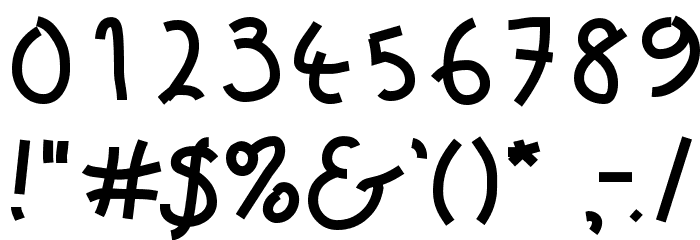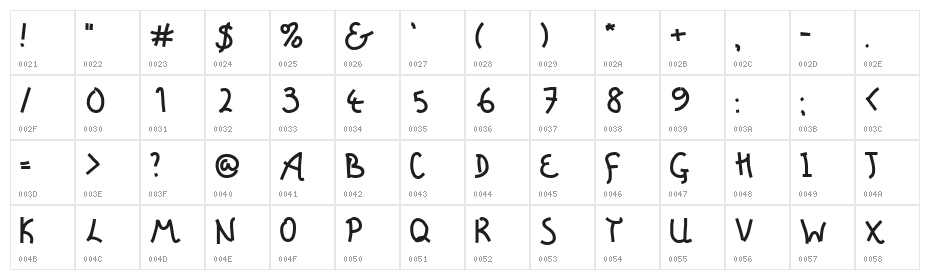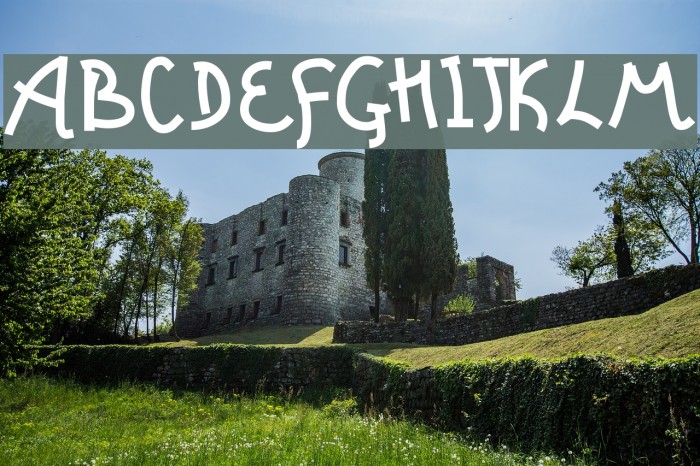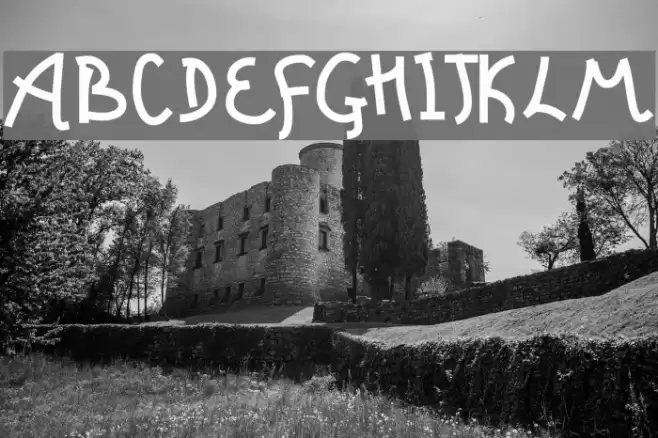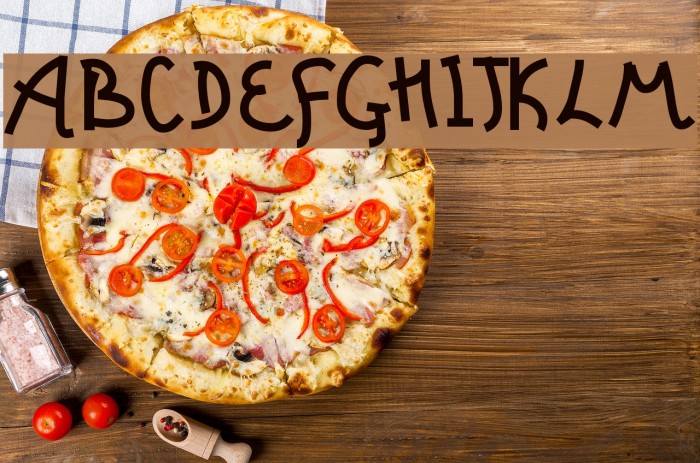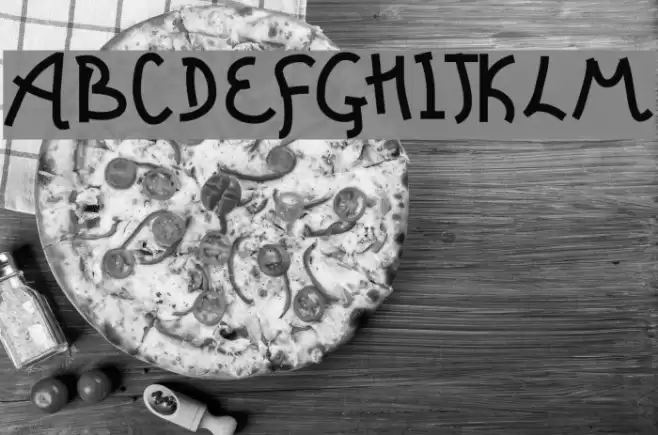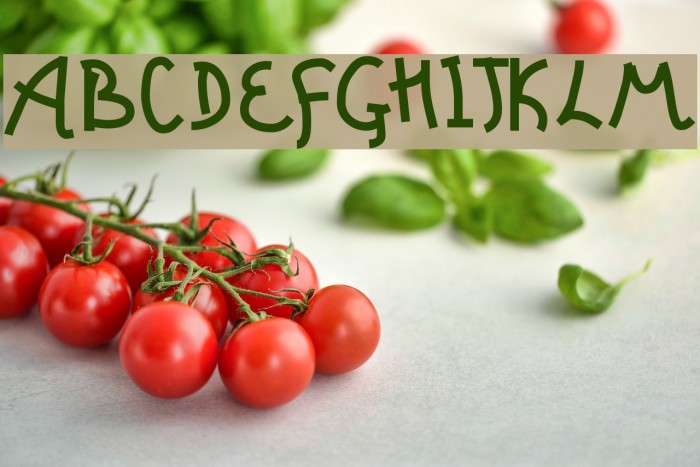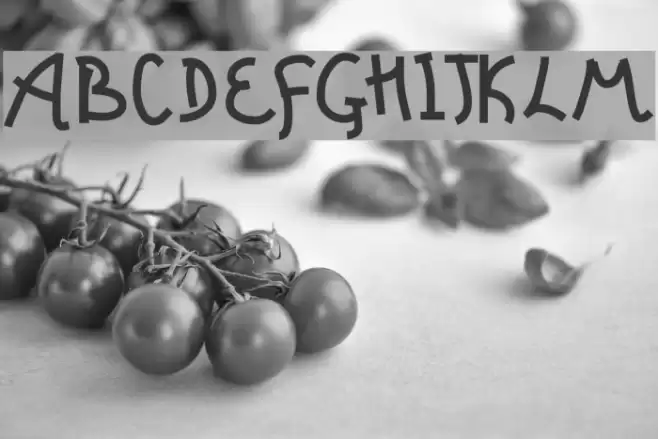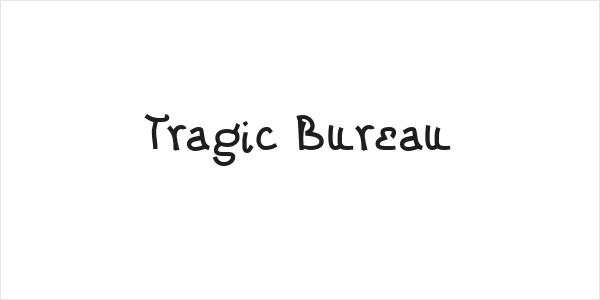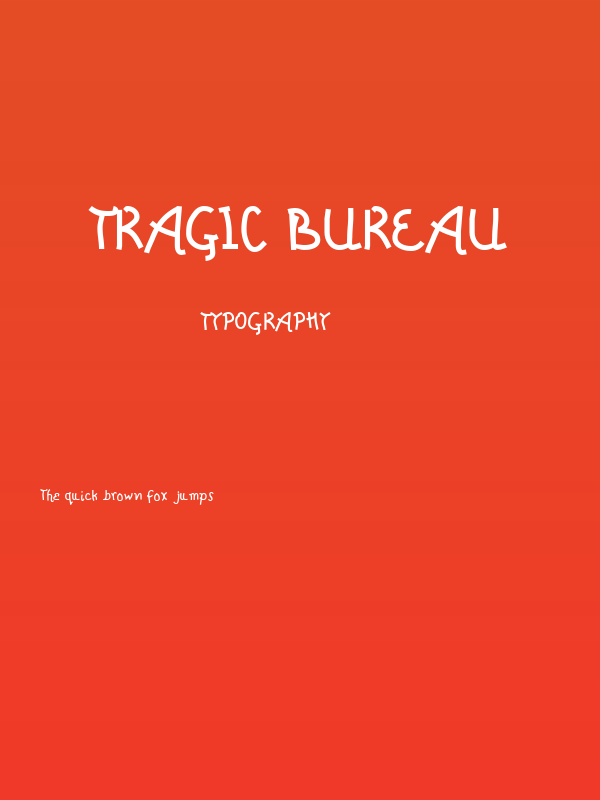
Tragic Bureau Font
This font features a playful and whimsical style with a hand-drawn appearance. The characters are bold and slightly irregular, giving them a lively and dynamic feel. The uppercase letters have a distinctive flair with exaggerated curves and angles, while the lowercase letters maintain a consistent flow with rounded edges. The numerals and special characters follow the same playful design, making the font suitable for creative and informal projects. The overall look is both unique and approachable, ideal for capturing attention in a fun and engaging way.